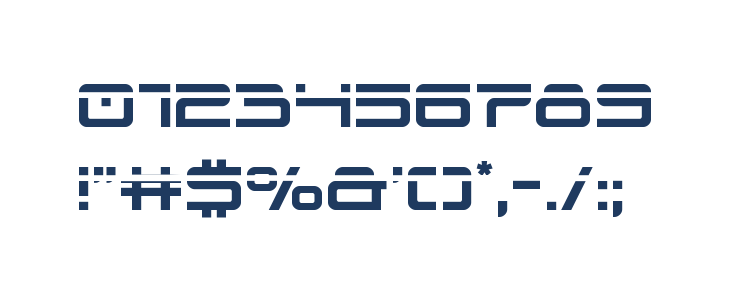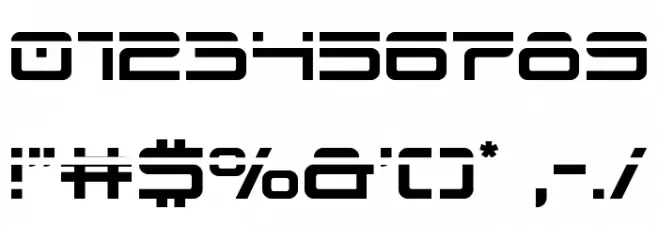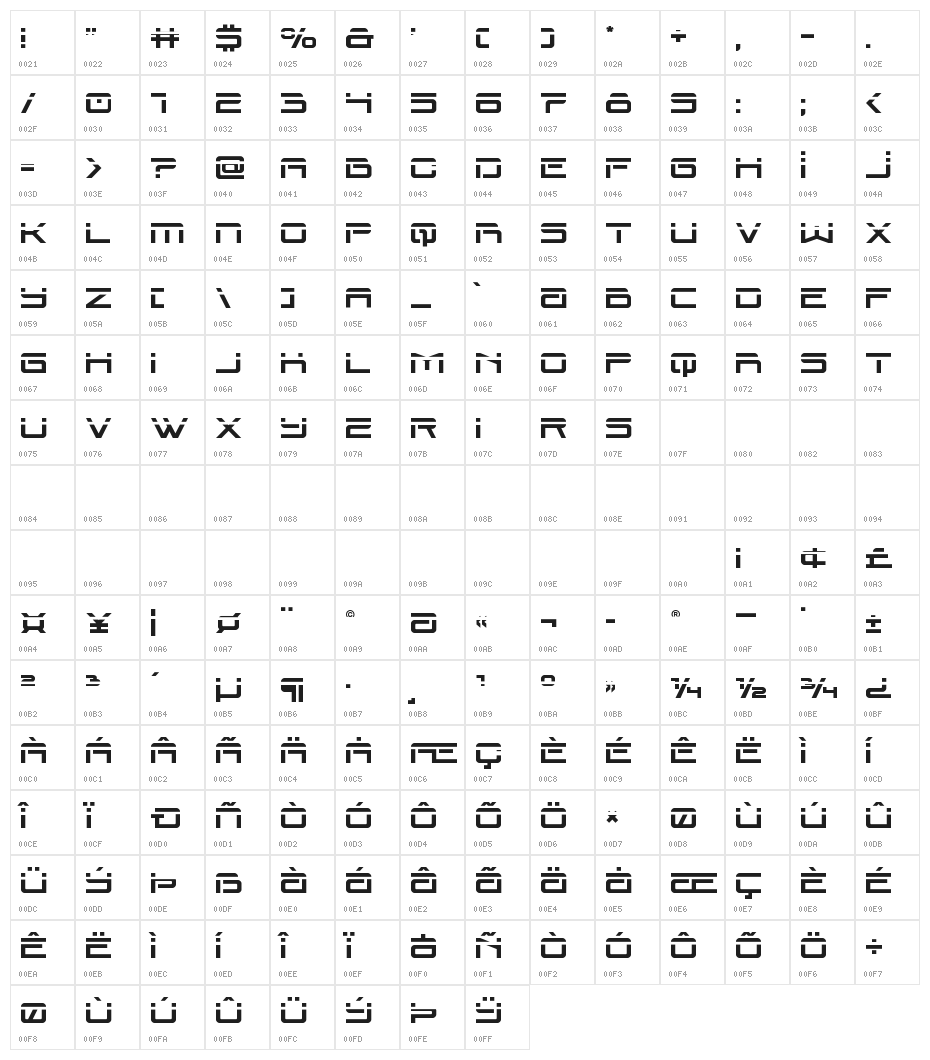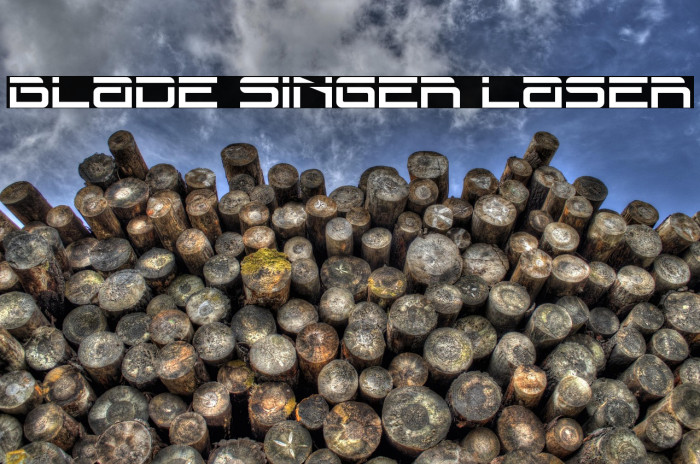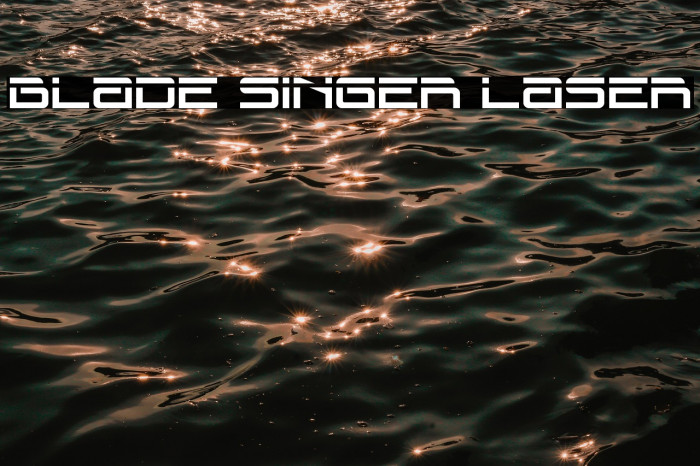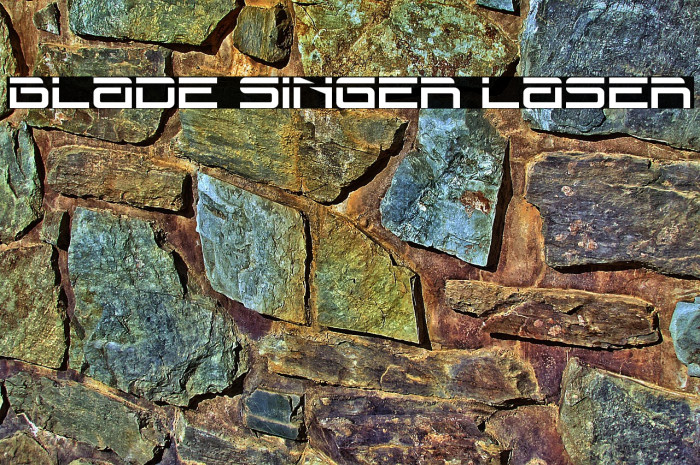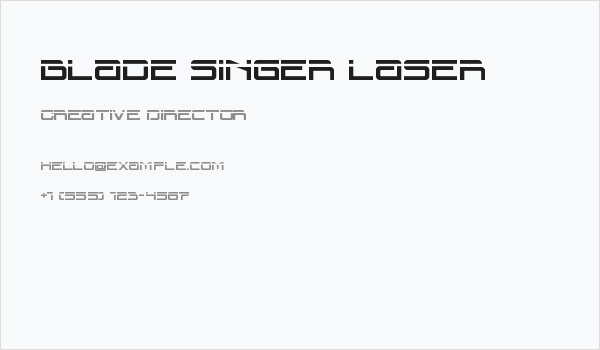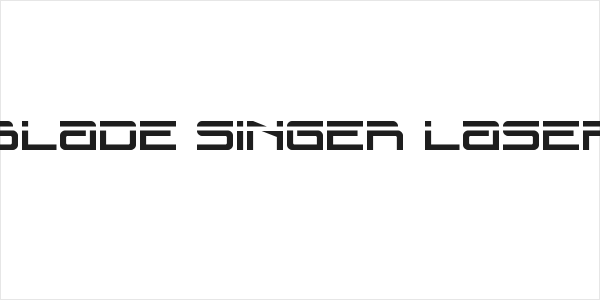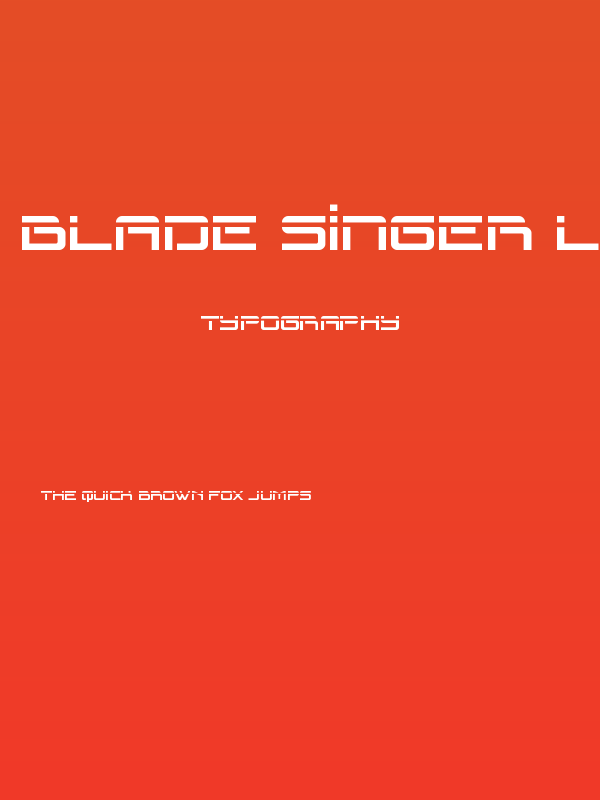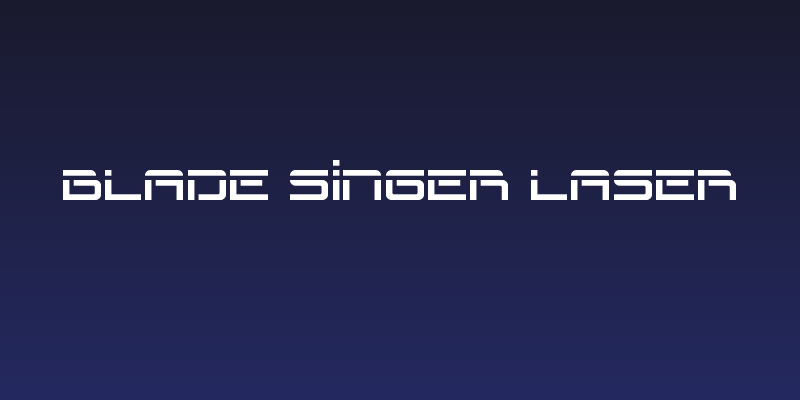
Blade Singer Laser Font
Blade Singer Laser Description
This font features a futuristic and geometric design, characterized by its sharp angles and clean lines. The uppercase and lowercase letters maintain a consistent style, with a distinct, blocky appearance that suggests a modern, technological aesthetic. The numbers and special characters are designed to complement the letters, maintaining the same angular and structured form. The overall look is sleek and contemporary, making it suitable for projects that require a cutting-edge or digital feel. The uniformity in stroke width and the absence of serifs contribute to its modern appeal.
| Proposed Projects | Ideal for tech branding, sci-fi themed designs, video game interfaces, and digital media. |